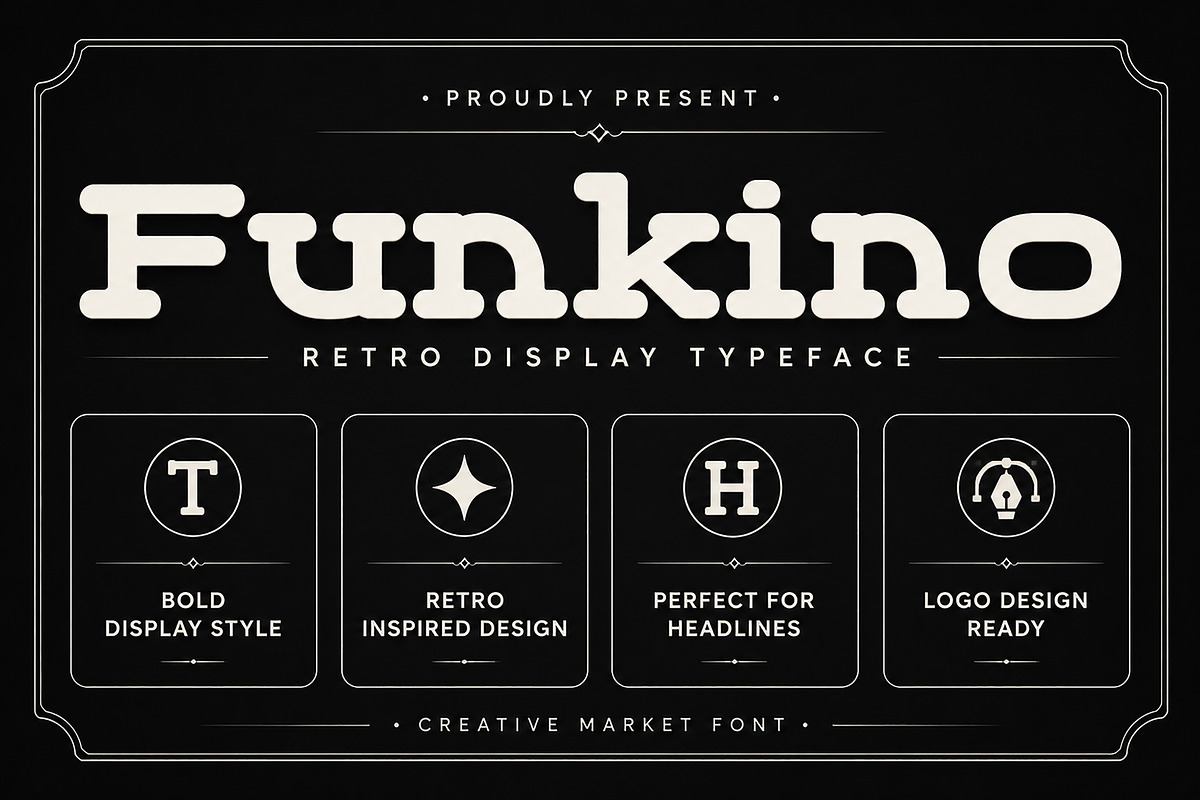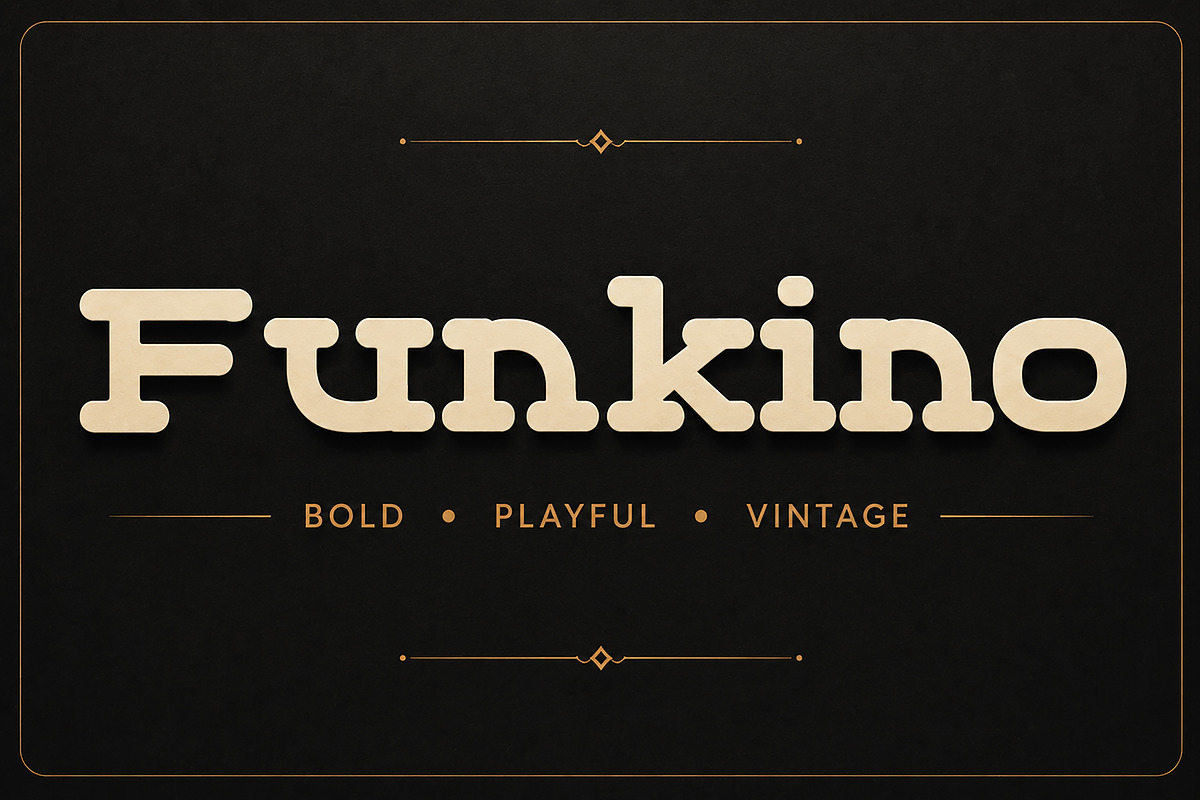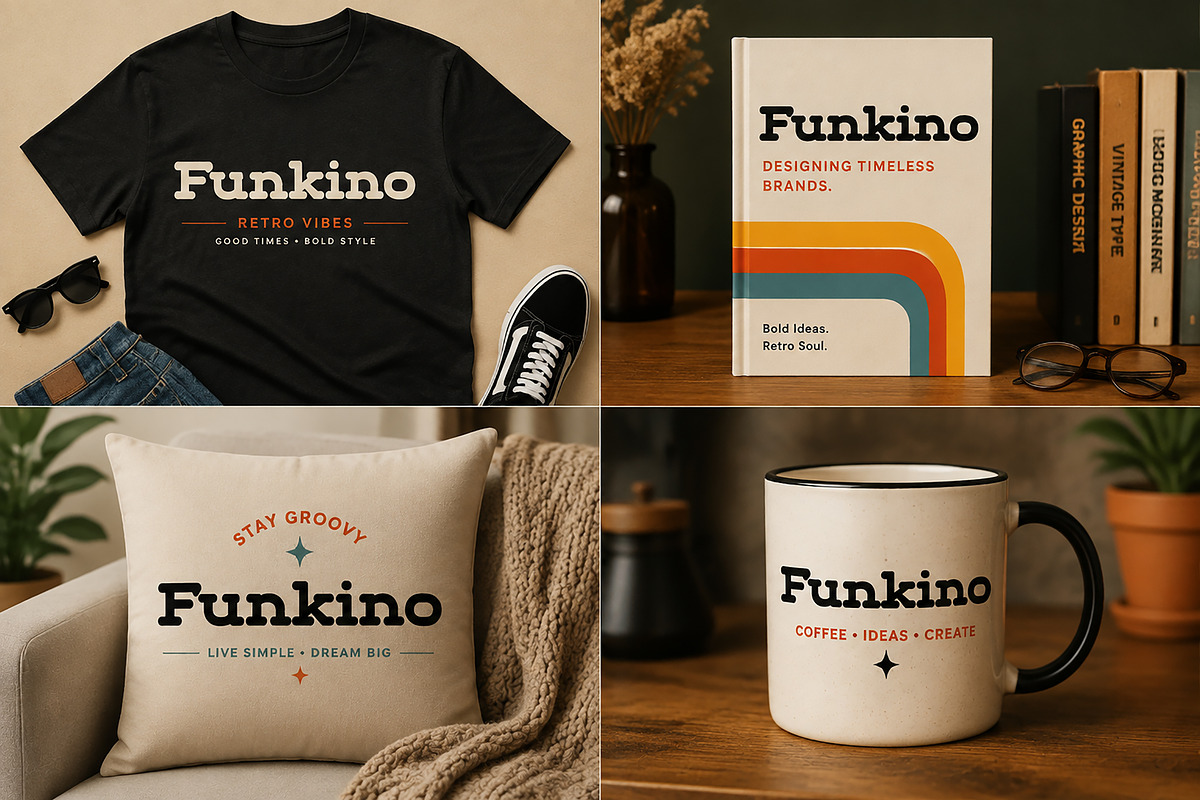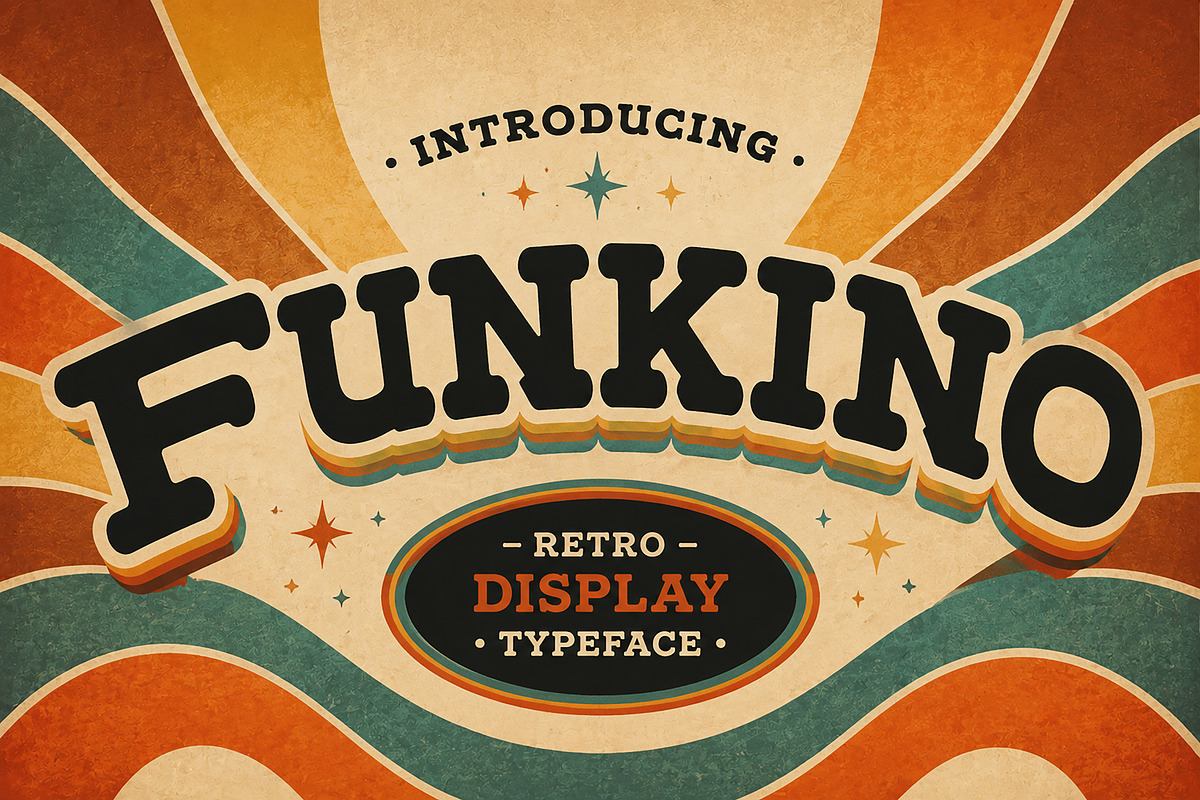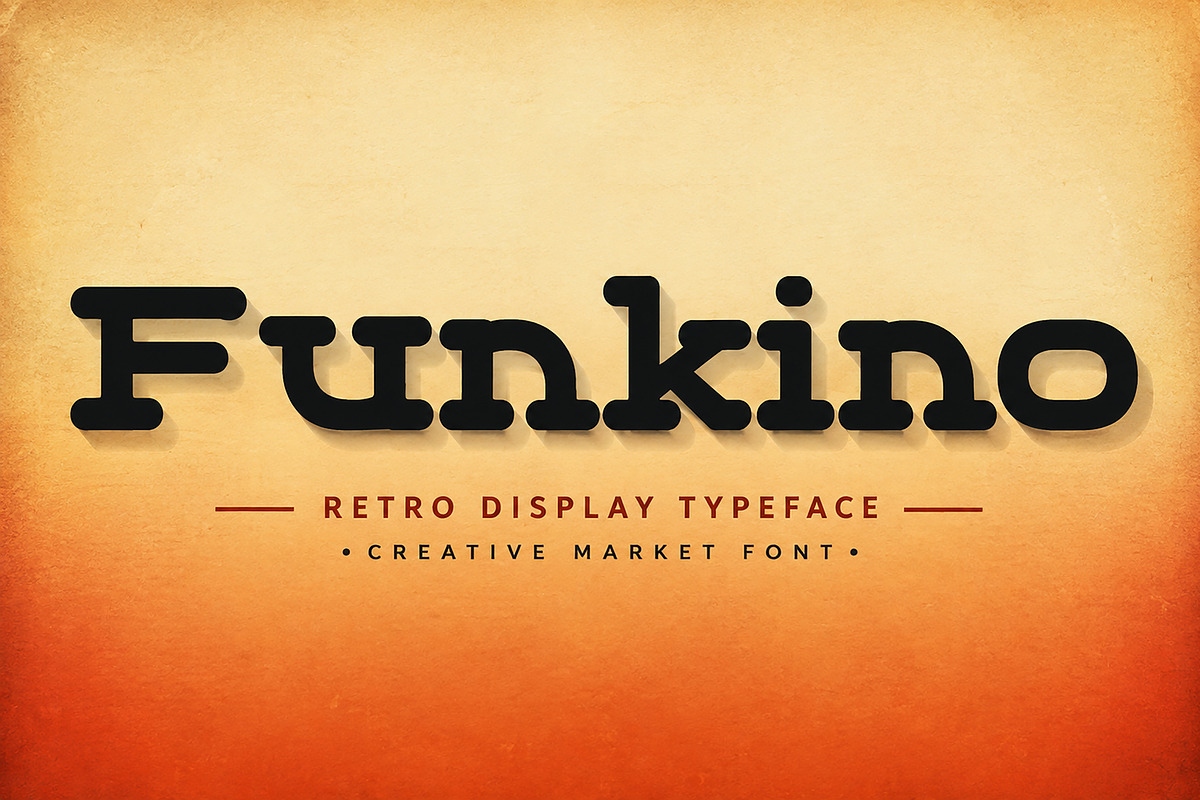
Funkino
Funkino – Retro Display Typeface
Description:
Funkino is a bold and playful retro display font inspired by vintage typography, groovy design, and classic branding aesthetics. With its thick rounded shapes and unique character, Funkino brings a strong personality to logos, headlines, posters, packaging, and creative branding projects.
Designed to make your designs stand out, Funkino combines a nostalgic 70s-inspired feel with a modern premium look. Its bold presence makes it perfect for eye-catching titles, apparel designs, social media graphics, product branding, and editorial layouts.
Whether you are creating a vintage logo, a stylish poster, a trendy brand identity, or a memorable headline, Funkino adds a fun and distinctive visual style to your work.
Branding Projects
Retro Posters
Apparel Design
Headlines & Titles
Editorial Design
Merchandise Design
Creative Advertising
Bold Retro Display Typeface
Unique Rounded Letter Style
Vintage Inspired Design
Perfect for Headlines and Logos
Professional Display Font
High Impact Typography Style